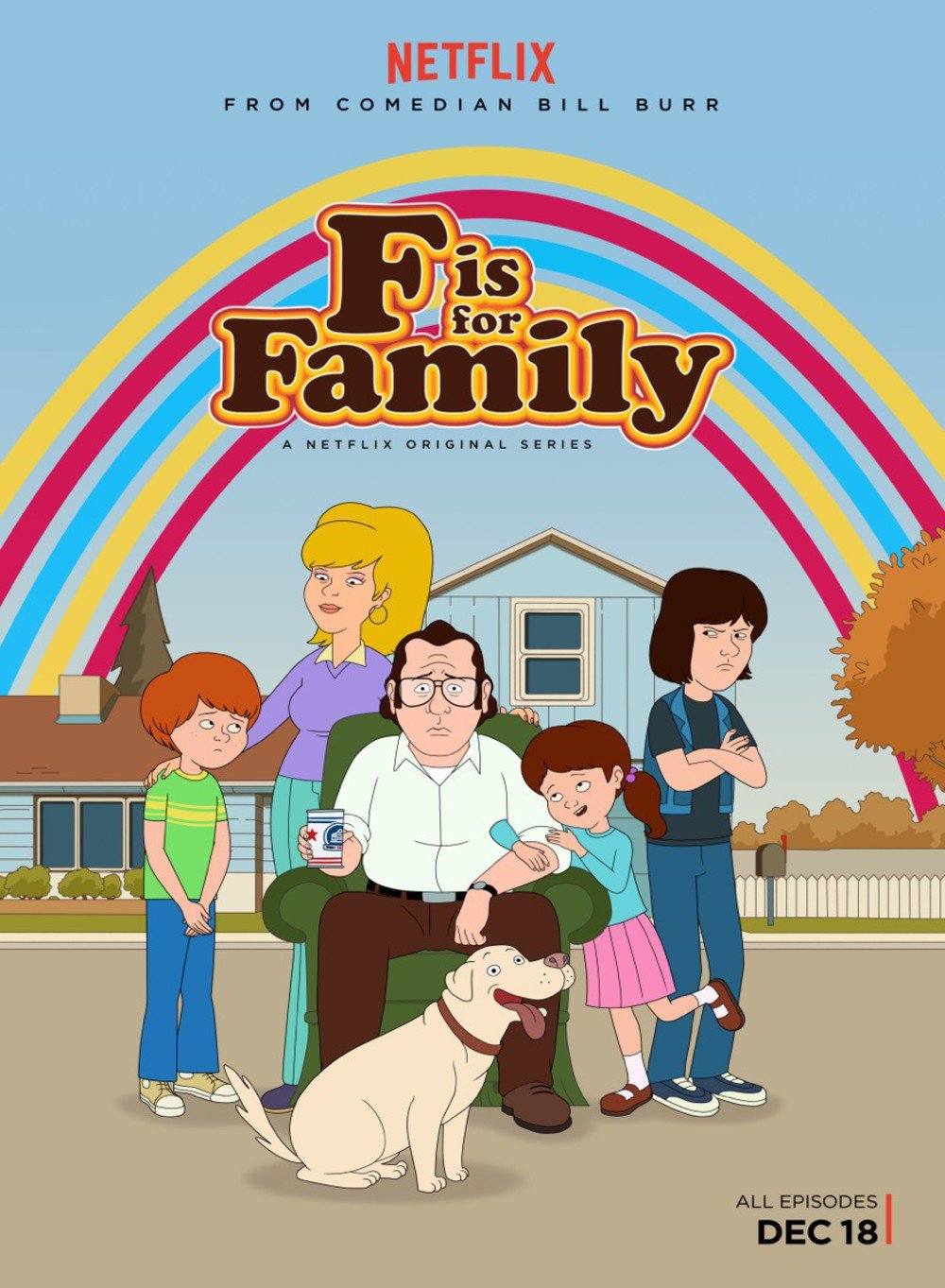
F Is for Family Font
AnimationF is for Family is an American adult animated web television series created for Netflix. Set between October 1973 and December 1974, the show follows a dysfunctional suburban Irish-American family, in the fictional town of Rustvale, Pennsylvania. The series celebrates all things the 1970s, including the lifestyle, the music, and all sorts of other nostalgic details.
The F is for Family title on the poster uses Oswald Bruce Cooper’s lovely heavy serif called Cooper Black.